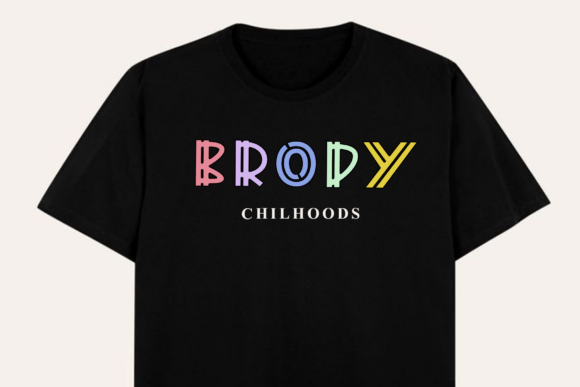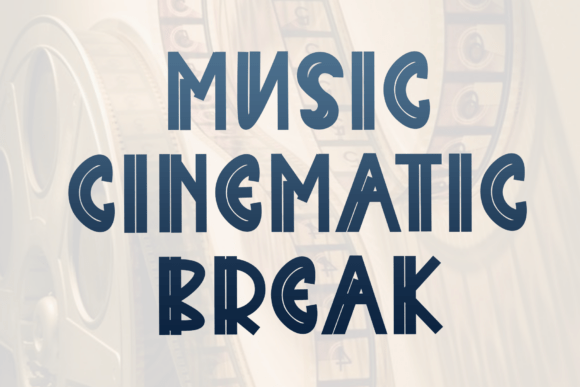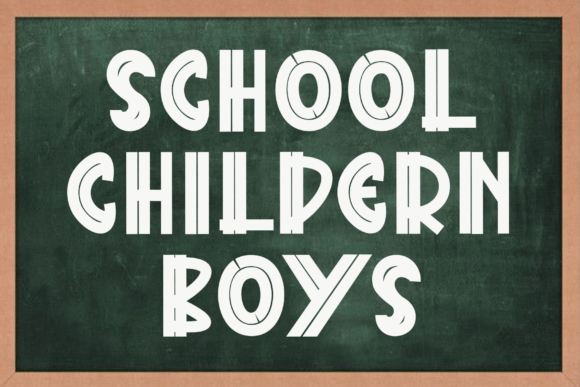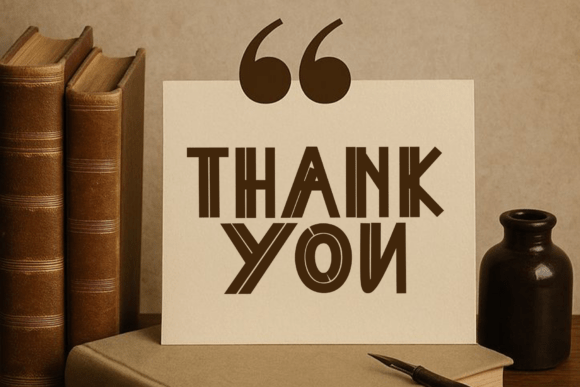
Introduction to Savage Font
Have you ever stared at a blank canvas, trying to bring your creative project to life, but struggling to find the perfect font to convey your message? The search for that elusive design resource can be a daunting task, especially when you’re looking for something that truly stands out. But what if I told you that there’s a font that can elevate your design to the next level, making it impossible to ignore?
Enter the Savage Font, a powerful and graphically dynamic modern display font that’s sure to make a statement. With its unique inline effect and rounded, unconventional letter shapes, this font generates a strong, edgy, and high-impact visual presence that’s perfect for urban apparel, music branding, gaming titles, and any design that requires a memorable and aggressively cool aesthetic.
Whether you’re working on a high-quality design project or simply looking for a free download to spice up your next creative endeavor, the Savage Font is an invaluable resource that’s sure to deliver. Its bold structure and layered design make it feel both modern and raw, while its transparent background allows for seamless integration with any design element.
Key Features of Savage Font
- High-quality, unique typography for creative projects, ideal for designers seeking a distinctive look.
- Transparent background, allowing for seamless integration into various design backgrounds and layouts.
- High-resolution design (up to 1024×1024 pixels), ensuring crisp and clear display on various screens and devices.
- Perfect for use in digital and print media, including logos, typography, and branding materials.
- Unique, bold design style that stands out from other fonts, making it ideal for designers seeking a statement piece.
Honest Review: Savage Font
As a designer, I’m always on the lookout for high-quality design resources that can elevate my creative projects. Recently, I stumbled upon the Savage Font, and I must say, it’s been a game-changer.
What works well: ✨ The Savage Font is incredibly versatile, making it suitable for a wide range of creative projects, from logos and branding to posters and social media graphics. The font is well-designed, with clean lines and a bold, edgy feel that’s perfect for making a statement.
Limitations: ⚠️ While the Savage Font is generally well-designed, I did find that it can be a bit too bold for some projects. In some cases, it may be overpowering, so be sure to use it sparingly.
Overall, I’m thoroughly impressed with the Savage Font. It’s a high-quality design resource that’s perfect for designers looking to add a bit of edge to their creative projects. Whether you’re working on a personal or professional project, the Savage Font is definitely worth checking out.
- Perfect for logos, branding, and posters
The Savage Font is ideal for graphic designers, digital artists, and marketers who need a high-quality, transparent background design resource for their creative projects. It’s perfect for logos, branding materials, and other design elements that require a clean and modern look.
Is the Savage Font a high-quality font, suitable for professional design projects?
Yes, the Savage Font is a high-quality font designed for professional use. It features a unique and stylish design that is perfect for creative projects, such as logos, typography-based designs, and other visual communications. The font’s high quality ensures that it will display well on a variety of devices and screens.